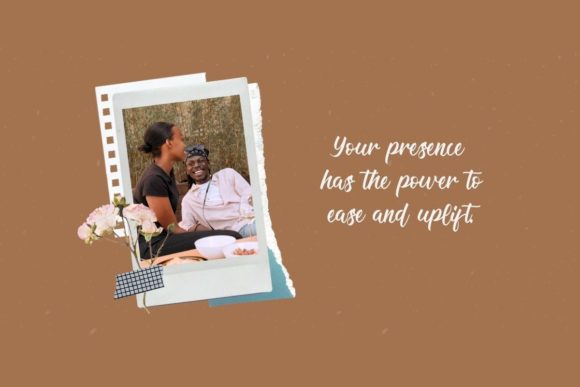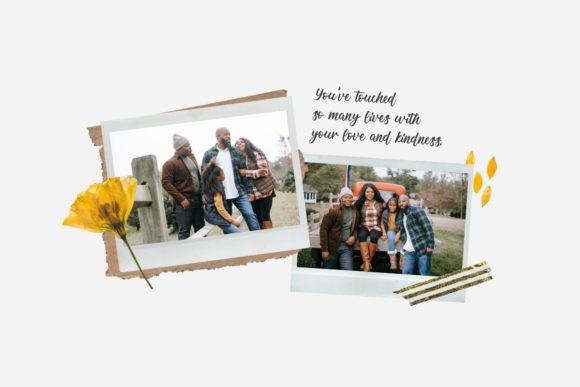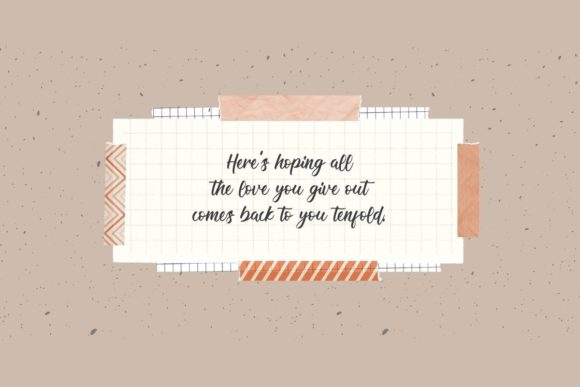
Introduction to Raniya Font
Have you ever been working on a creative project, pouring your heart and soul into it, only to feel like something’s missing? Maybe you’re trying to convey a sense of whimsy and romance, but the right words just aren’t coming together? That’s where the perfect font can make all the difference.
Enter the enchanting Raniya Font, a sweet and cursive handwritten font that’s sure to add a touch of magic to your designs. With its high-quality lines and gentle curves, this font is perfect for adding a joyful and romantic feel to your projects. Whether you’re working on a wedding invitation, a children’s book, or a social media graphic, Raniya Font is the perfect design resource to take your work to the next level.
Key Features of Raniya Font
- High-quality, elegant script font with a unique, flowing design, ideal for creative projects and personal use.
- Perfect for use in wedding invitations, quotes, logos, and other creative projects where a touch of elegance and sophistication is desired.
Honest Review: Raniya Font
As a designer, I’m always on the lookout for high-quality design resources to elevate my creative projects. Recently, I stumbled upon the Raniya Font, and I must say, it’s been a game-changer for me.
Here’s what I love about the Raniya Font:
- ✨ High-quality design: The font is sleek, modern, and incredibly detailed. It’s perfect for creating a sophisticated look in my designs.
- ✨ Transparent background: The font’s transparent background makes it super easy to combine with other design elements, giving me endless possibilities for creative projects.
- ⚠️ Limited character set: While the font is beautiful, it’s only available in a limited character set. This might be a problem for designers who need to work with a wide range of languages.
- ⚠️ Not suitable for large-scale projects: Due to its high-quality design, the Raniya Font can be quite heavy on system resources. This might make it difficult to use for large-scale projects or those with tight deadlines.
Overall, I’m really impressed with the Raniya Font. While it has some limitations, its high-quality design, transparent background, and free download make it a valuable addition to any designer’s toolkit.
Tips for Getting the Most Out of Raniya Font
Experiment with different font sizes and styles to create a unique look. Combine the Raniya Font with other design elements to add depth and interest to your project.
The Raniya Font is perfect for creative projects, such as logos, brochures, and business cards. It’s also great for designing digital products, like websites and mobile apps. With its high-quality design and transparent background, the Raniya Font is a valuable design resource for any project.